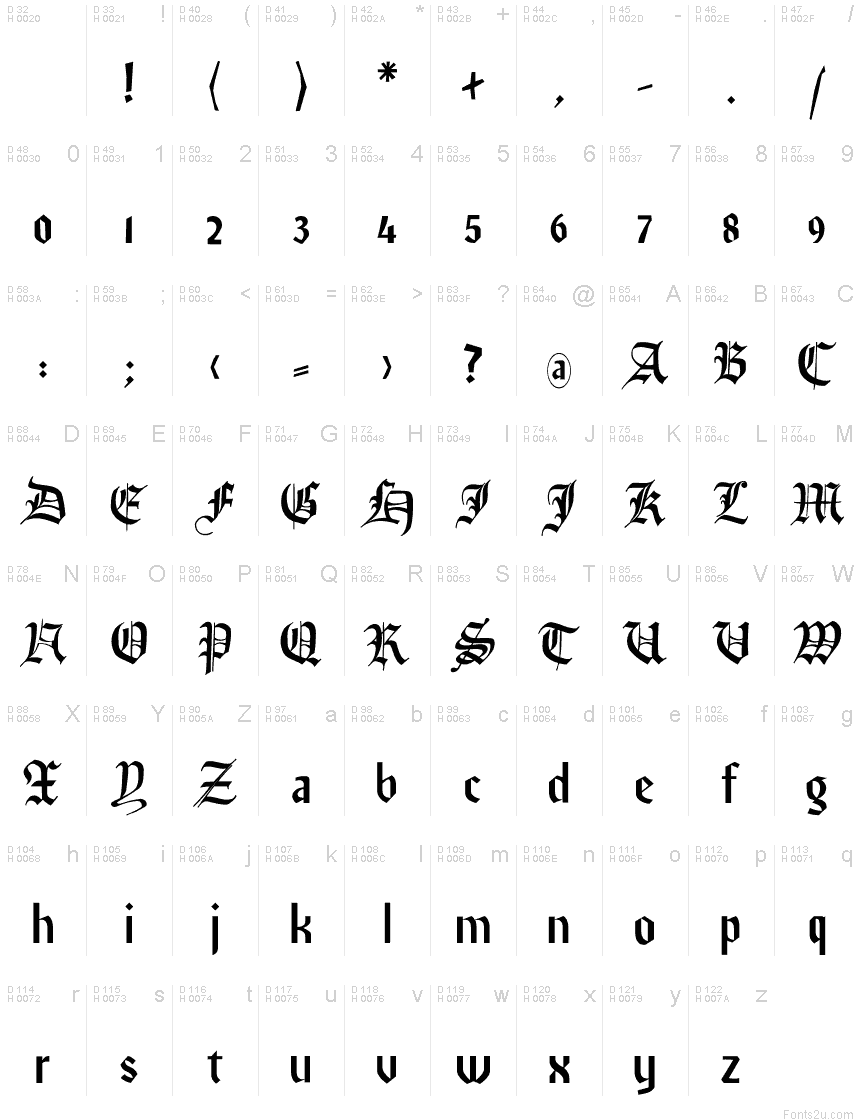
ImresFraktur by M. Klein is a free blackletter font with broad, dark strokes and the sharp broken forms associated with medieval lettering. Its most ornate feature is the dramatic initial style, built from curling leaf-like shapes and long sweeping points. The remaining letters are simpler and more compact.
Those leaf-like initials can become part of heraldic illustration on fantasy book covers and historical game graphics, rather than serving only as lettering. The dense silhouettes also suit metal album packaging and medieval event posters, and in editorial design the font is especially useful for opening letters or section titles with an illuminated-manuscript reference.